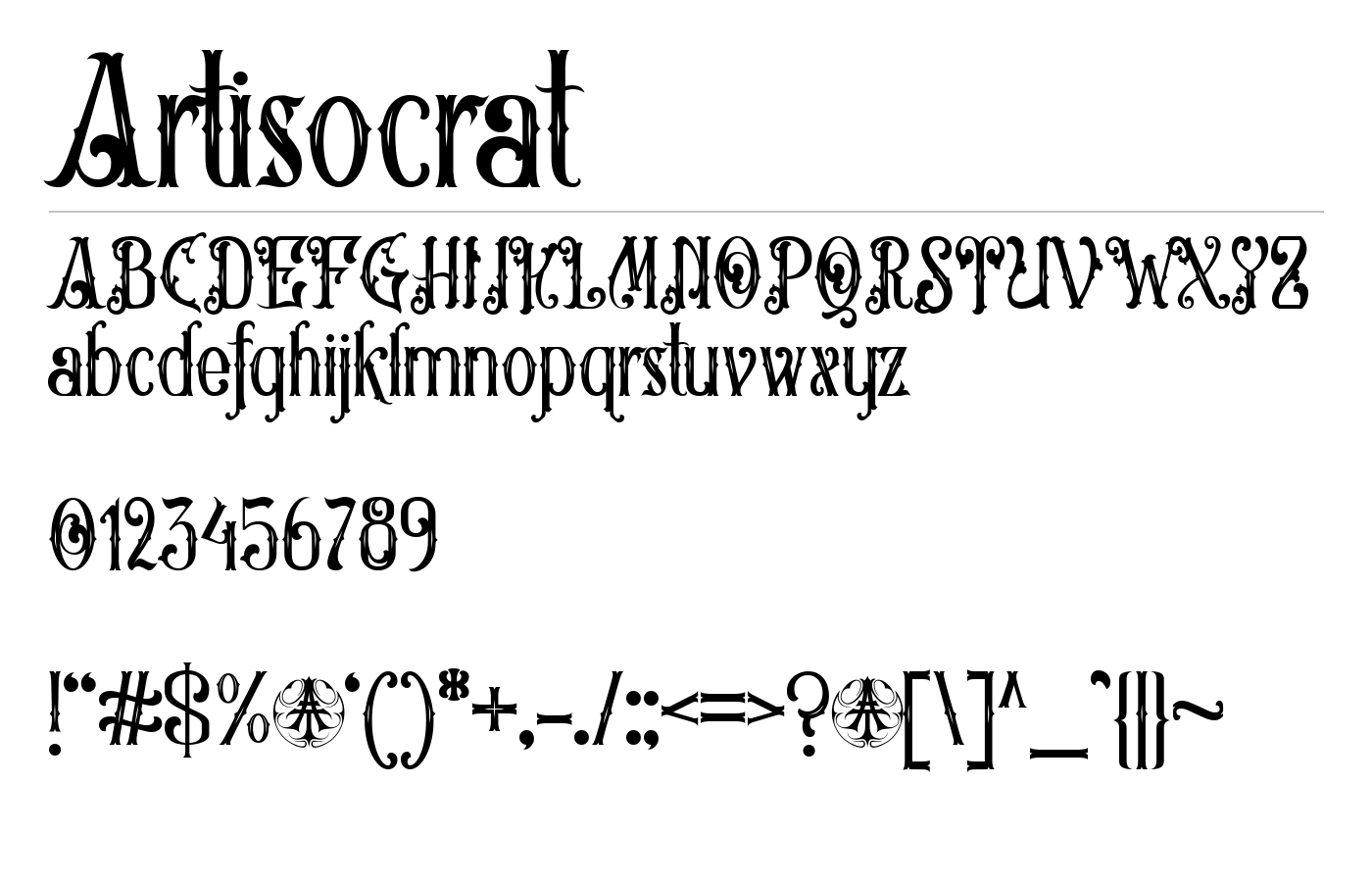
Artisocrat is a decorative serif font with a vintage, ornamental flair, featuring high contrast strokes and elaborate swirls that give it a distinctive, elegant personality. Its narrow width and intricate details make it ideal for fashion branding, logos, and headlines where a touch of sophistication and historical charm is desired. This font works best in large sizes or display settings to highlight its artistic elements without sacrificing readability.
Artisocrat Font
About Artisocrat Font
| Font family | Artisocrat Font |
| Designer | TypeAliens |